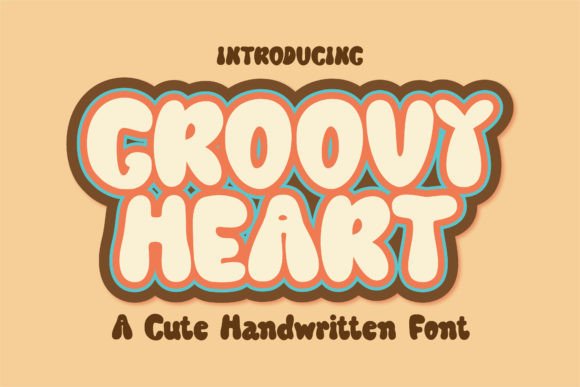
**Introducing the Magical Groovy Heart Font!**
Unleash your creativity with Groovy Heart, a font that's as vibrant as it is versatile. Its playful curves and enchanting shapes will infuse your designs with a touch of whimsy and wonder. Perfect for UI design, this font ignites a spark of joy and personality in every stroke. Whether it's websites, apps, or social media, Groovy Heart will make your creations stand out from the crowd with its irresistible charm.
Imagine your online creations adorned with the enchanting dance of Groovy Heart. Its unique and captivating style will weave a spell on your audience, capturing their attention and leaving a lasting impression. Each letter exudes a sense of playfulness and warmth, adding an unforgettable touch to your designs.
With Groovy Heart at your fingertips, you'll discover a limitless canvas of creative possibilities. Let its allure guide you as you craft captivating designs that resonate with your audience. Embrace the irresistible charm of Groovy Heart and watch your creations bloom with a vibrancy that knows no bounds.
**Dive into the World of Groovy Heart's Versatility:**
Embrace the endless possibilities that Groovy Heart unfolds. Its multifaceted nature makes it the perfect companion for a myriad of design endeavors. From whimsical logos that captivate the eye to playful headlines that ignite curiosity, Groovy Heart effortlessly adds a touch of magic to every project.
Unlock the power of emotional connection with Groovy Heart. Its charming curves and irresistible shapes evoke a sense of warmth and wonder, creating designs that resonate deeply with your audience. Let your words dance with delight as Groovy Heart transforms them into captivating expressions of creativity and imagination.
As a true masterpiece of UI design, Groovy Heart will elevate your creations to new heights. Its carefully crafted strokes and flowing lines ensure seamless integration into any digital interface. Experience the joy of effortless navigation as Groovy Heart guides your users through your designs with its enchanting allure.